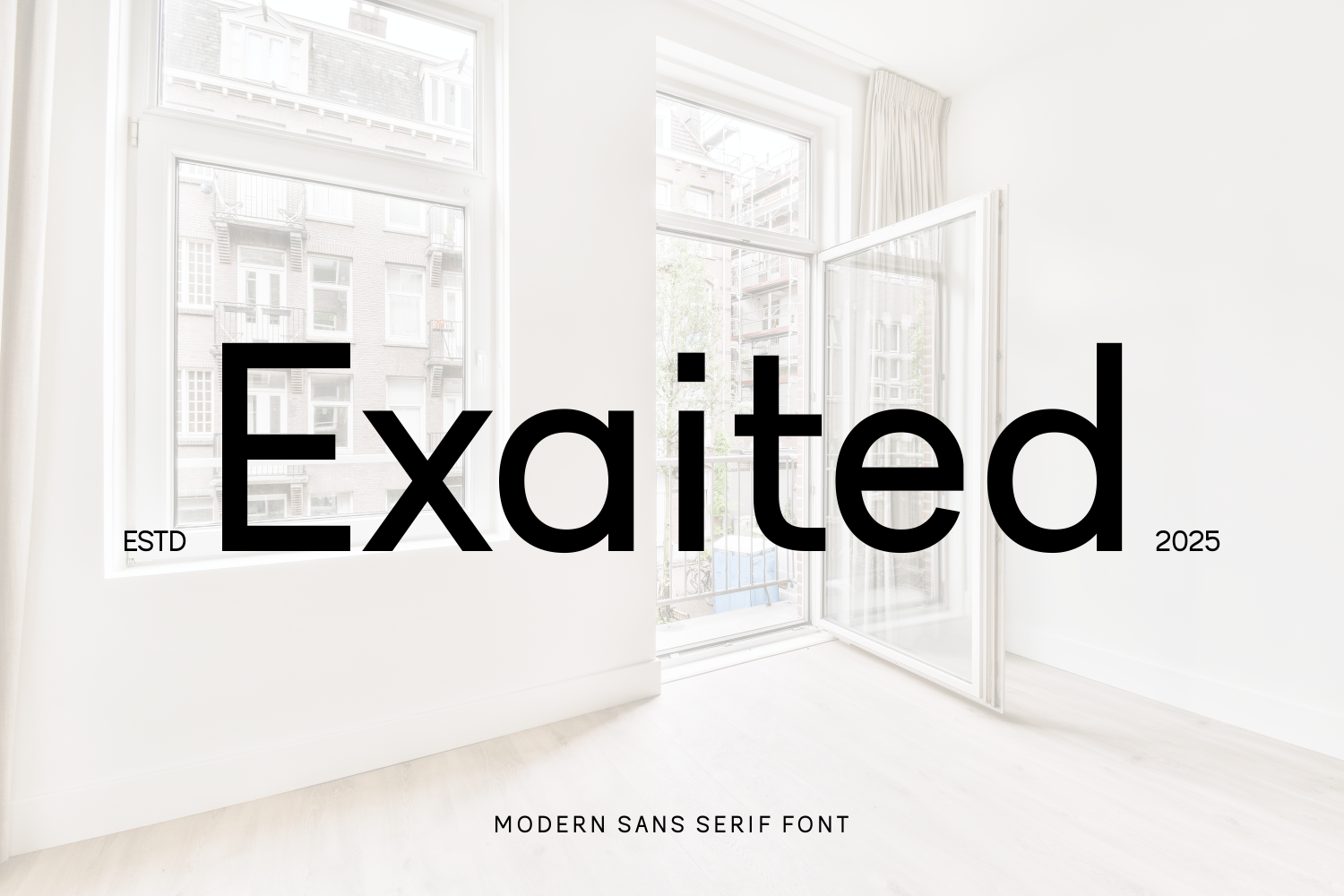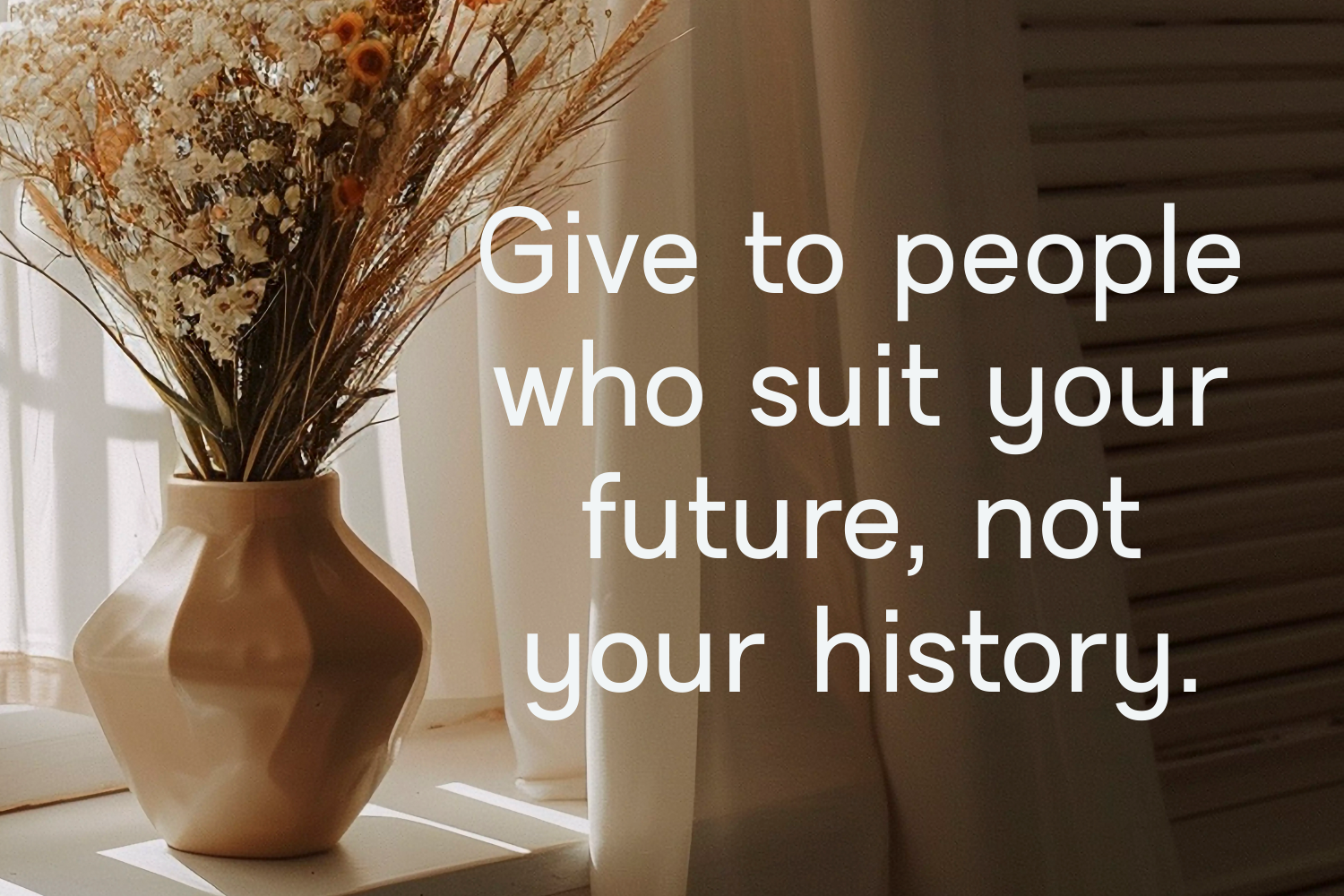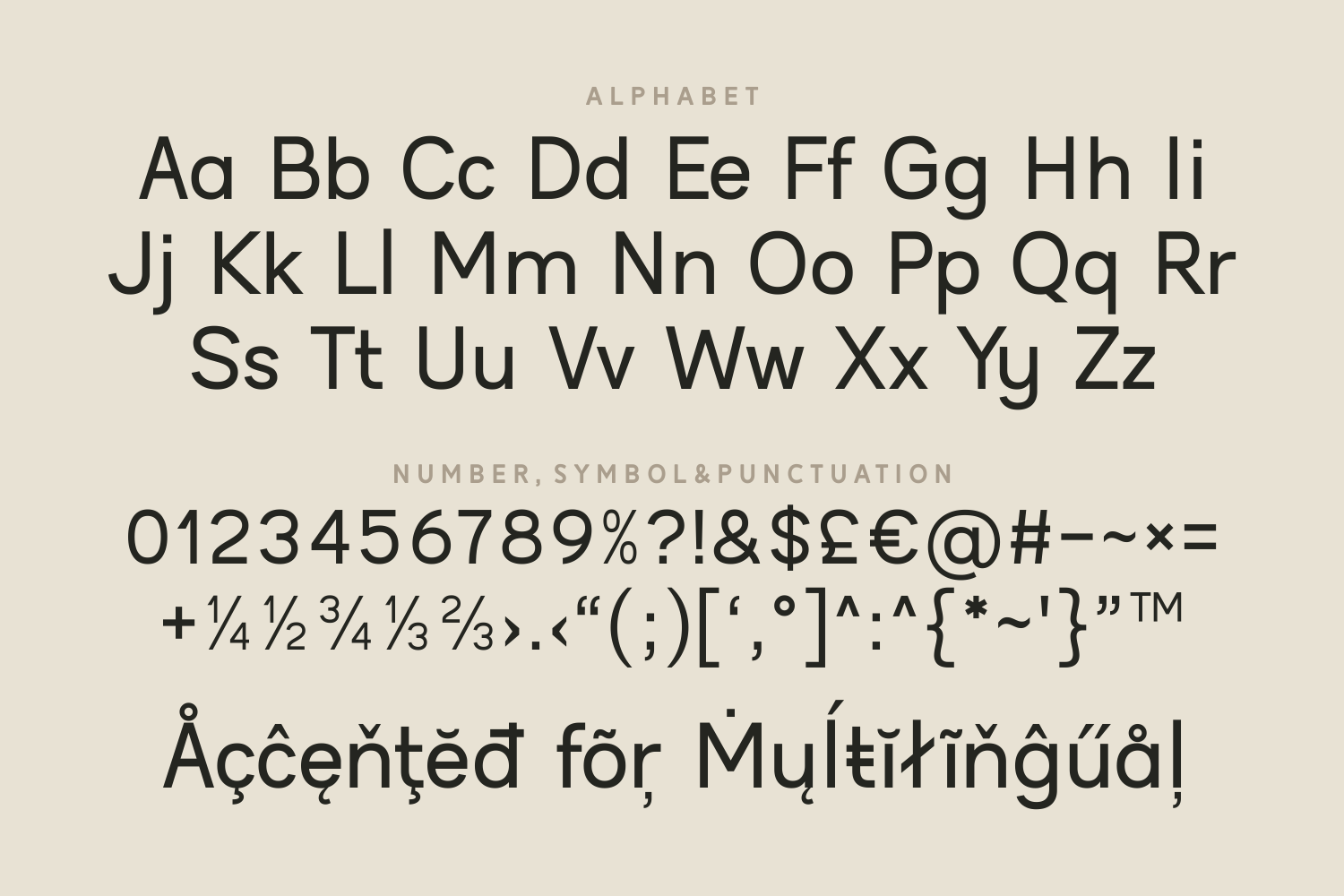
Exaited is a sleek and minimal sans-serif font with a clean, open feel. Its modern lines and balanced proportions suit luxury brands, modern editorials, digital startups, and clean user interfaces that demand sophistication and clarity.